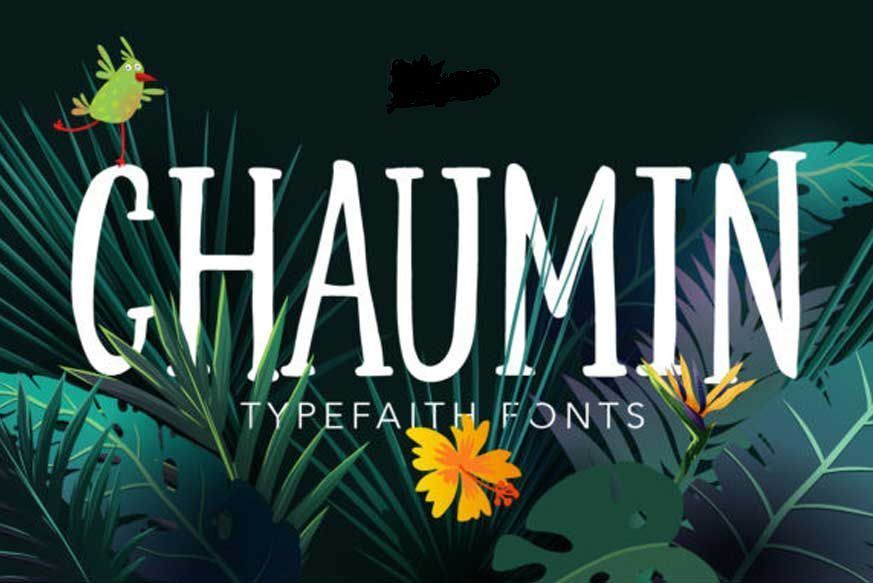
Chaumin Font
Chaumin is a fun, cool and sweet serif display font with a subtle retro vibe. It’s the ideal font for taking your crafting ideas to the next level.